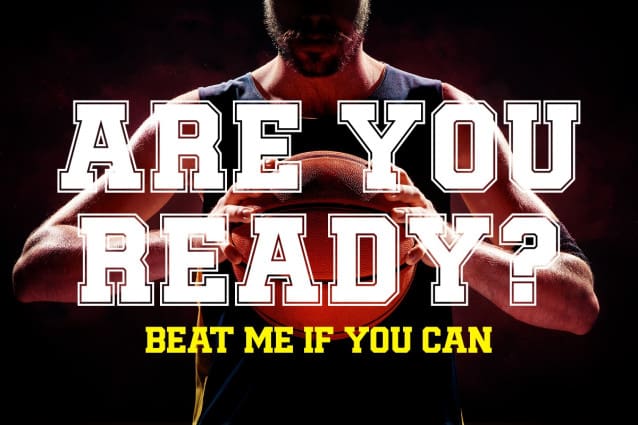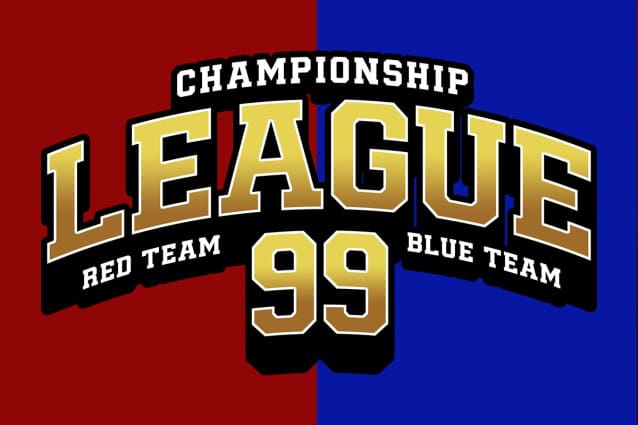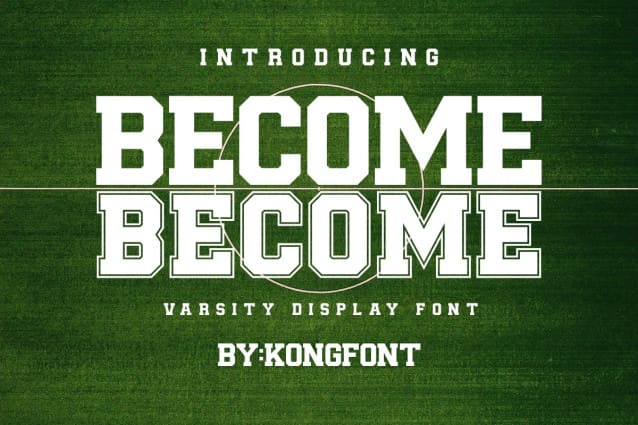
Become Font
Become Font – Modern Sport Serif font provides a new different look from the general serif fonts. The characteristics of a serif font that has an additional serif remain in this font, but the existing serif follows the actual font shape. Become Modern Sport Serif font is a serif font that looks clean, simple, and modern. It can also use as a bold font and modern font.
Become Font – Modern Sport Serif font has many matches when combined with some products. This font is the best font for sports equipment, like jerseys, T-shirts, Bags, etc. Fashion brand tags will be compatible with this typeface. There is no need to add excessive pictures and ornaments because Become Font – Modern Sport Serif font has presented its identity where a simple yet modern impression radiates. It is in the list of typefaces that can use as a digital font and print fonts. This font can use as a title that appears first in intro videos that catch the viewer’s attention at a first impression.
Posters and magazine covers are especially appropriate when using the Become Modern Sport Serif font. This is because even though this font is a serif typeface, it can be seen clearly and can be distinguished by each letter. So this font is included in the legible font.